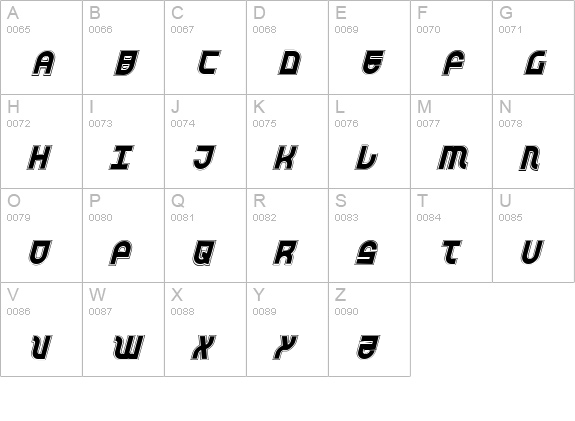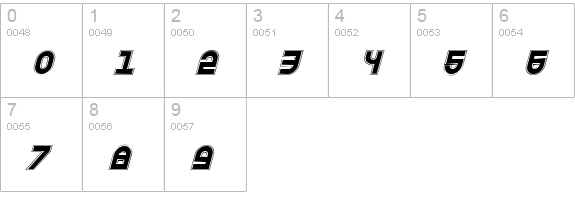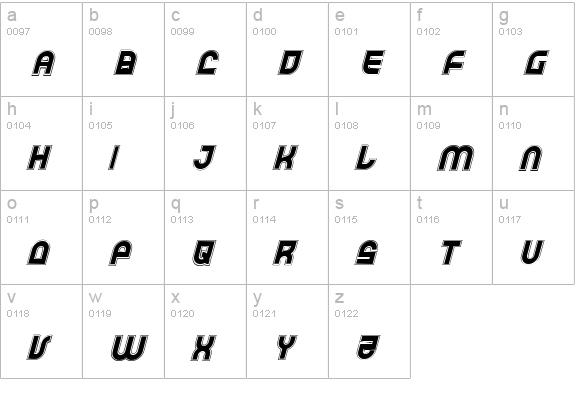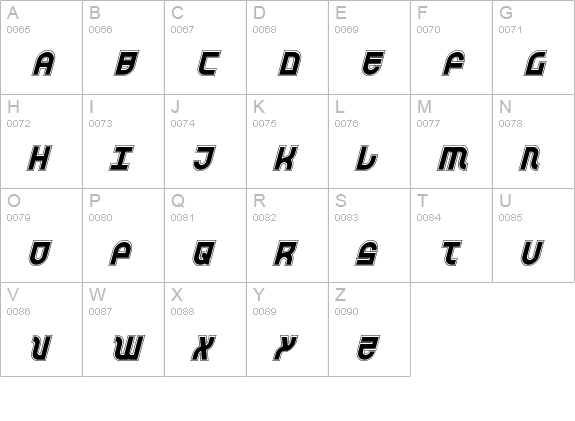
Trek Trooper Academy Italic is a distinctive, italic variant in the Trek typeface family \xE2\x80\x94 well suited to design and typography projects.
Trek Trooper Academy Italic font is a sleek and modern typeface designed for those who want to add a touch of sophistication to their designs. With its bold and italicized style, this font exudes confidence and professionalism. Whether you are working on a poster, logo, or any other creative project, Trek Trooper Academy Italic font will elevate your design to the next level. The best part? This font is available for free download at FontsMarket.com. Simply head over to the website and get your hands on this stylish typeface without spending a dime. Don't miss out on the opportunity to enhance your projects with the elegance of Trek Trooper Academy Italic font. Download it today and take your designs to new heights!